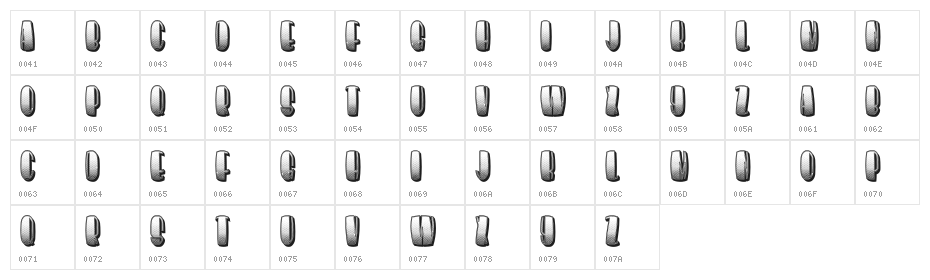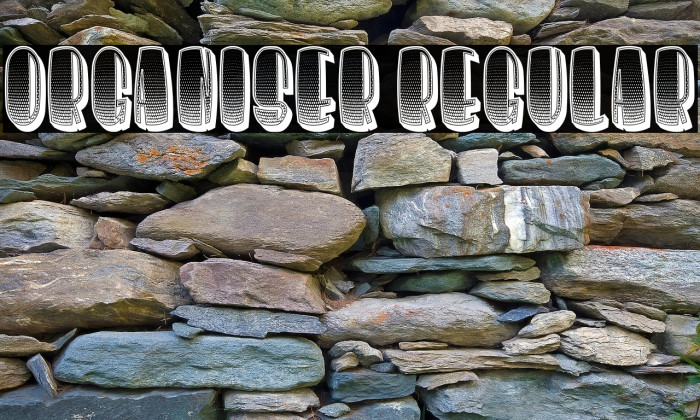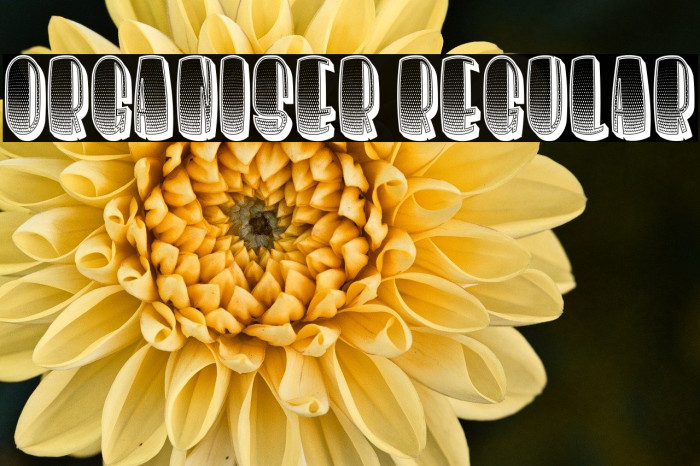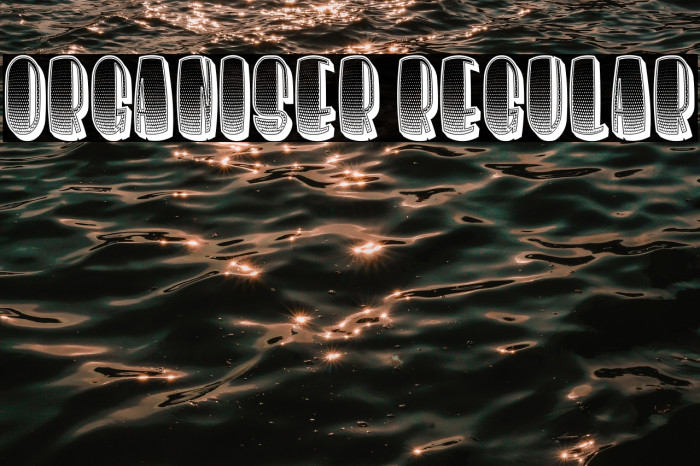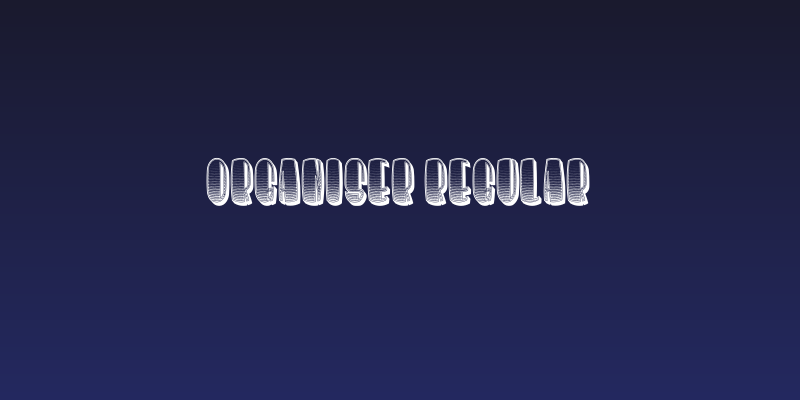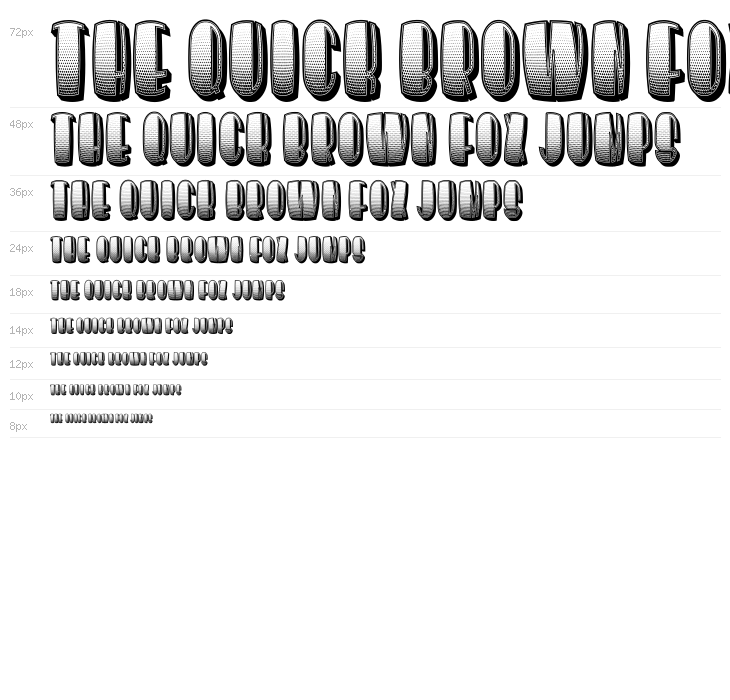
Organiser Regular Font
Organiser Regular Description
This font features a bold, three-dimensional style with a distinct retro vibe. Each character is outlined with a thick black border, creating a strong visual impact. The interior of the letters is filled with a halftone dot pattern, adding texture and depth. The overall design is reminiscent of vintage comic book lettering, making it ideal for projects that require a playful yet bold aesthetic. The uppercase letters are uniformly styled, providing consistency across the alphabet. This font is particularly suited for display purposes where attention-grabbing text is needed.
| Overall Style | Vintage |
| Proposed Projects | Ideal for comic book covers, retro-themed posters, and eye-catching headlines. |